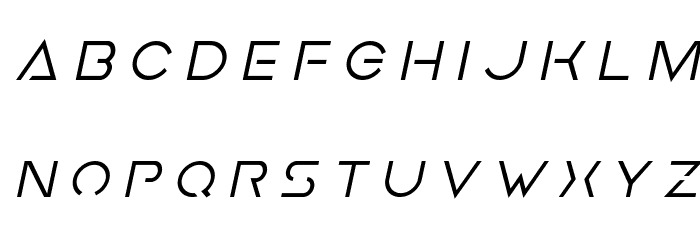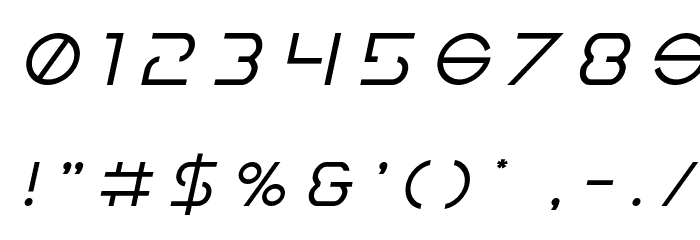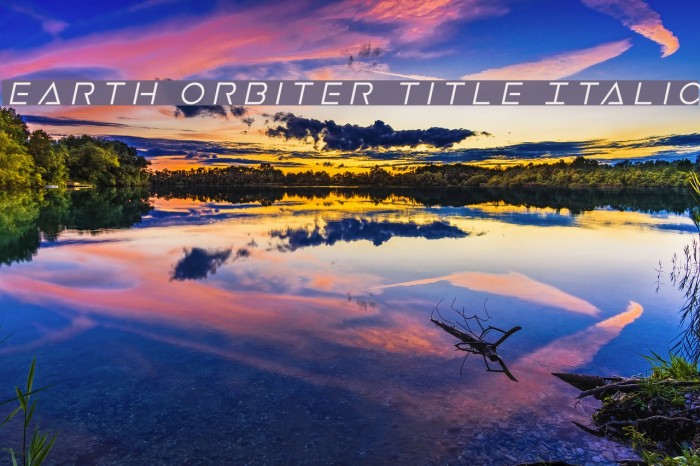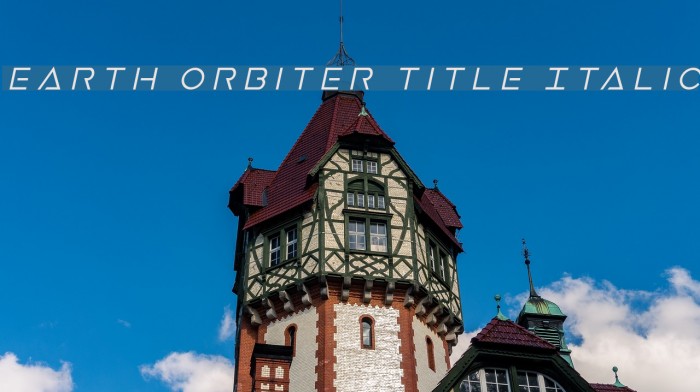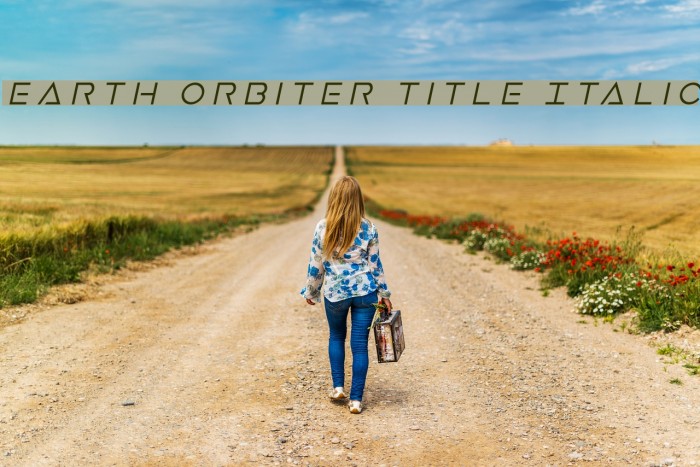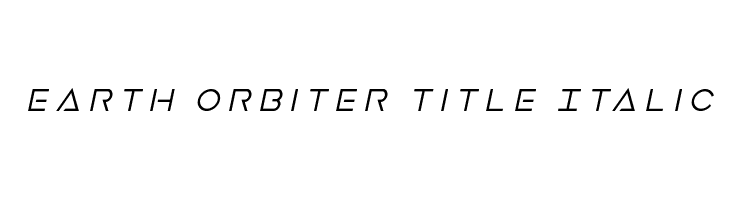
Earth Orbiter Title Italic Font
This font features a sleek, futuristic design with a distinct italic slant, giving it a dynamic and forward-moving appearance. The characters are crafted with geometric precision, incorporating sharp angles and clean lines that convey a sense of modernity and innovation. The uppercase letters are bold and assertive, while the lowercase letters maintain a consistent style, ensuring readability and aesthetic harmony. The numerals are uniquely styled, with a futuristic flair that complements the overall design. Special characters are thoughtfully integrated, maintaining the font's cohesive look. This font is ideal for projects that require a modern and innovative touch, such as technology branding, sci-fi themes, or contemporary advertising.
A sleek, futuristic italic font with geometric precision and modern appeal.
- Proposed Projects: Ideal for technology branding, sci-fi themes, contemporary advertising, and innovative design projects.